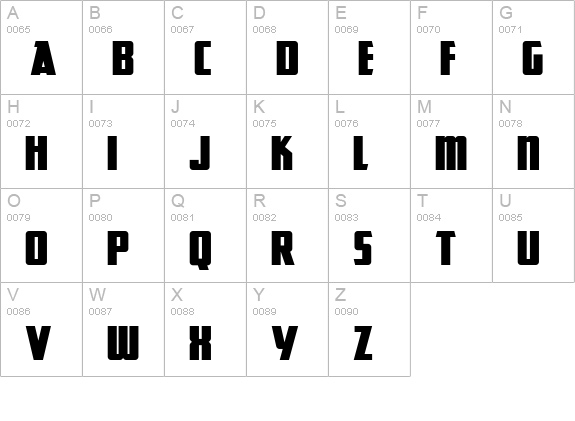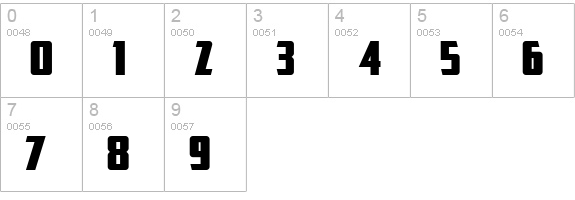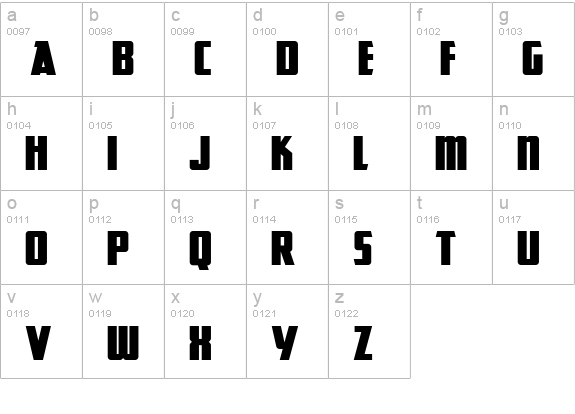
GreatLakesNF Font Details
GreatLakesNF is a beautifully crafted font that exudes elegance and sophistication. With its clean lines and modern aesthetic, this font is perfect for a wide range of design projects. Whether you're working on a logo, branding materials, or a website, GreatLakesNF is sure to make a statement. What sets GreatLakesNF apart is that it is not only visually stunning, but also incredibly versatile. Its balanced proportions and subtle details make it a great choice for both headlines and body text. The font's timeless appeal ensures that your designs will stand the test of time. And the best part? GreatLakesNF is completely free to download at FontsMarket.com. This means that you can add this exceptional font to your collection without breaking the bank. Don't miss out on the opportunity to elevate your designs with GreatLakesNF - download it today and see the difference it can make!